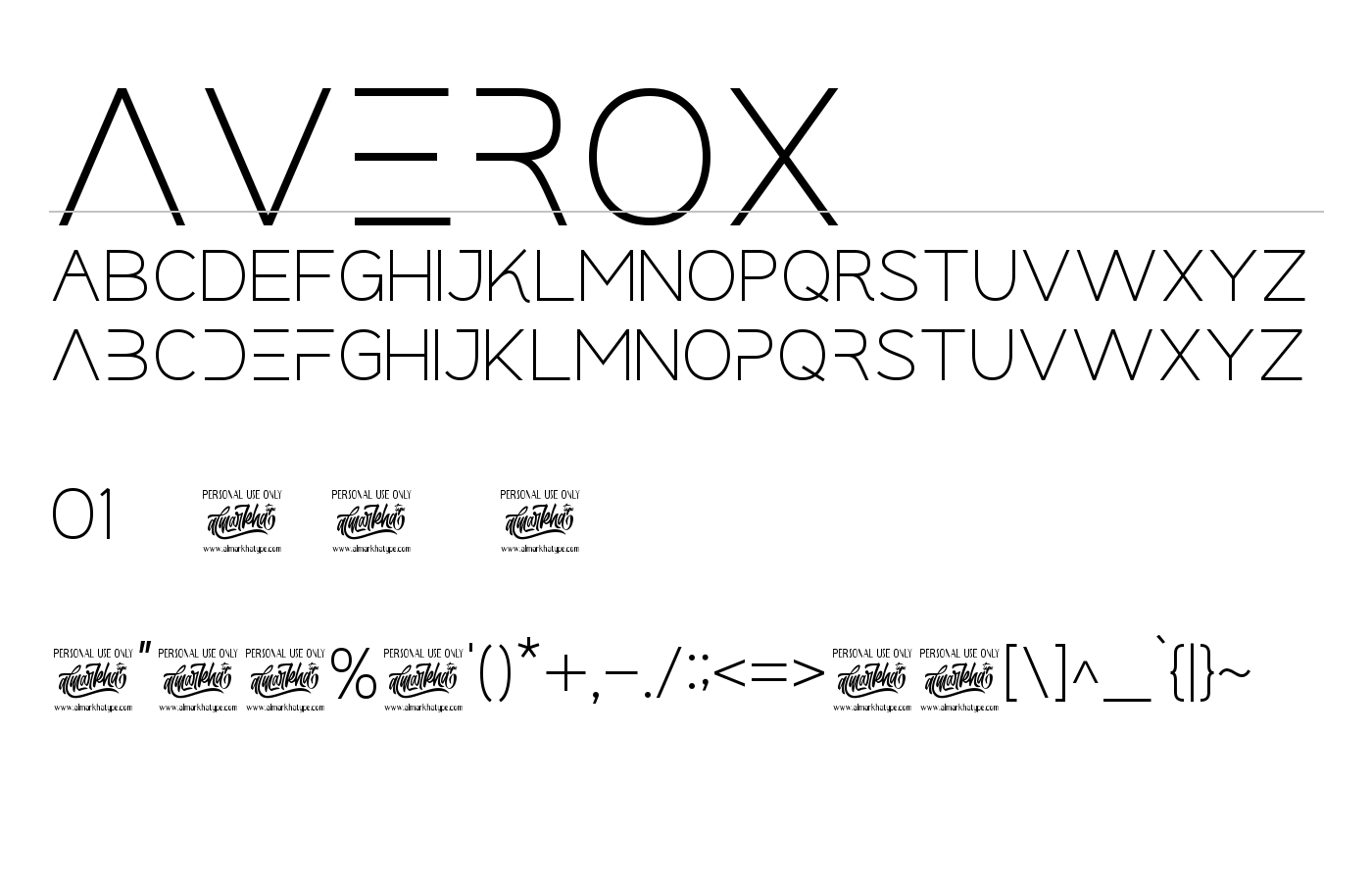
Averox is a sleek, modern sans serif font characterized by its thin, geometric lines and an elegant, minimalist feel. Its tall x-height and clean letterforms with subtle futuristic touches make it ideal for contemporary branding, tech-focused projects, and stylish headlines. This font works well in designs that seek a sophisticated, forward-looking vibe while maintaining clarity and simplicity.
About averox Font
| Font family | averox Font |